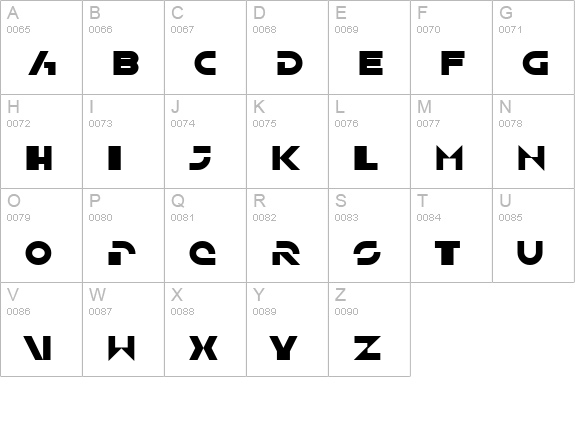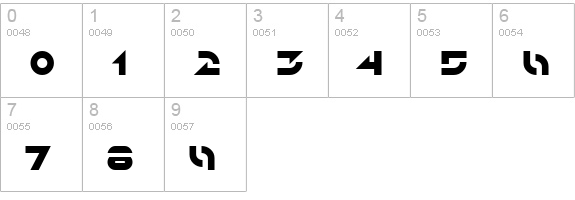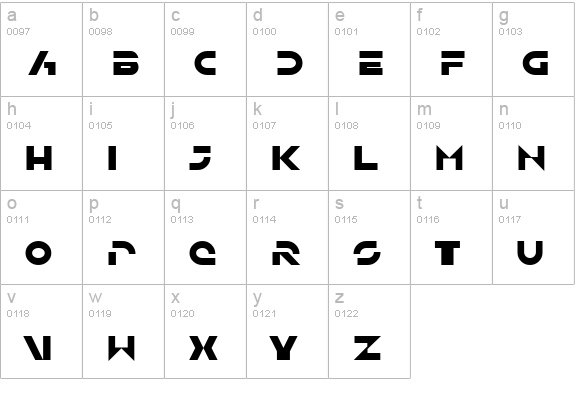
SF Solar Sailer Bold Font Details
SF Solar Sailer Bold is a strong, high-contrast variant in the SF typeface family \xE2\x80\x94 well suited to headlines, attention-grabbing titles, and strong calls-to-action.
Introducing SF Solar Sailer Bold font, a stunning display typeface that embodies the futuristic essence of science fiction. With its bold and captivating design, this font is sure to make a lasting impression on any project it graces. SF Solar Sailer Bold font features a unique blend of sleek lines and geometric shapes, giving it a distinct and modern appearance. Its sharp edges and strong presence convey a sense of power and innovation, making it perfect for titles, headlines, logos, and other attention-grabbing designs. But that's not all - SF Solar Sailer Bold font is not only visually striking, but it is also freely available to download at FontsMarket.com. Yes, you read that right - this extraordinary font can be yours without any cost. Whether you're a designer, a student, or simply someone with a passion for typography, you can now enjoy the benefits of this exceptional font without breaking the bank. With SF Solar Sailer Bold font, your creative possibilities are endless. Its versatile nature allows it to seamlessly adapt to various design styles and themes, whether you're working on a futuristic sci-fi project, a cutting-edge technology advertisement, or a bold and modern website. The attention to detail in SF Solar Sailer Bold font is second to none. Every letter has been meticulously crafted to ensure a harmonious balance between form and function. The result is a font that not only looks visually stunning but also ensures legibility and readability in all sizes and formats. So why wait? Take advantage of this incredible opportunity and download SF Solar Sailer Bold font for free at FontsMarket.com. Elevate your designs to new heights with this captivating typeface that is sure to leave a lasting impression on your audience. With SF Solar Sailer Bold font, you'll not only stand out from the crowd but also do so without spending a dime.